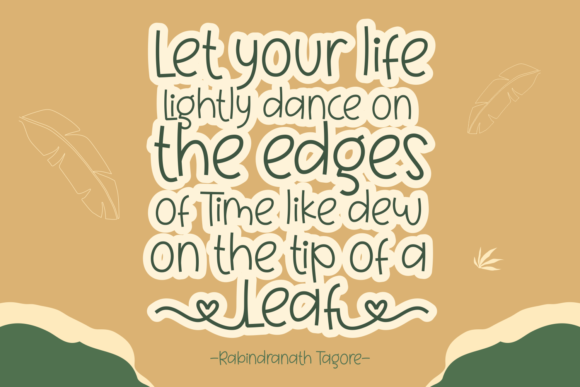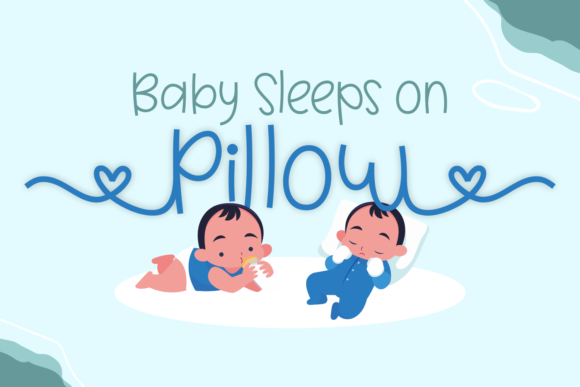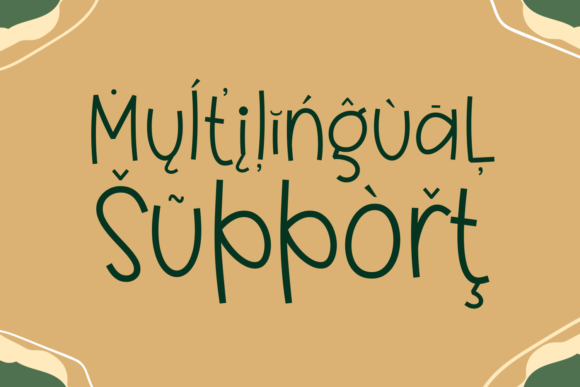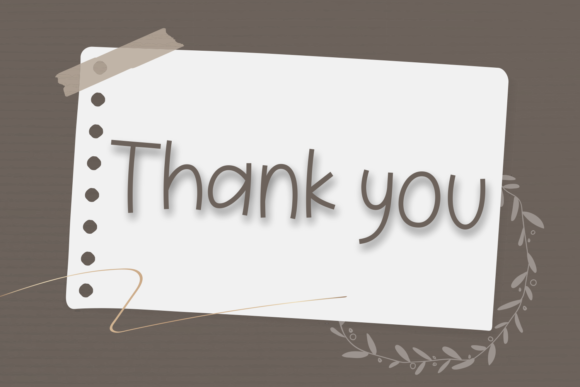
Introducing Halbert Font: The Ultimate Chic and Quirky Display Font for Designers and Crafters
Are you tired of using the same old fonts for your branding projects? Look no further! Halbert Font is here to revolutionize your design game with its unique blend of chic, fun, and quirky style. This display font is perfect for designers and crafters looking to add a touch of personality to their work. In this article, we’ll dive into the features and benefits of Halbert Font, and explore how it can elevate your branding projects to the next level.
What is Halbert Font?
Halbert Font is a stylish and versatile display font that is perfect for a wide range of applications, including logos, t-shirt printing, creative products, and more. Its unique design makes it stand out from the crowd, adding a touch of whimsy and playfulness to any project. Whether you’re a designer, crafter, or entrepreneur, Halbert Font is an excellent choice for anyone looking to add some personality to their brand.
Key Features of Halbert Font
- Chic and Quirky Design: Halbert Font boasts a unique and stylish design that is sure to turn heads. Its blend of chic and quirky elements makes it perfect for brands looking to add a touch of personality to their image.
- Highly Versatile: Halbert Font is perfect for a wide range of applications, including logos, t-shirt printing, creative products, and more. Its versatility makes it an excellent choice for designers and crafters who need a font that can adapt to different projects.
Benefits of Using Halbert Font
So, why should you choose Halbert Font for your next project? Here are just a few benefits of using this amazing display font:
- Stand Out from the Crowd: With Halbert Font, you can add a touch of personality to your brand and stand out from the competition. Its unique design ensures that your brand will be noticed and remembered.
- Perfect for Branding: Halbert Font is perfect for branding projects, including logos, business cards, and more. Its stylish and versatile design makes it an excellent choice for businesses looking to create a strong brand identity.
How to Use Halbert Font
- Pair it with Other Fonts: Halbert Font works well when paired with other fonts. Experiment with different combinations to create a unique and stylish look.
- Use it for Headings: Halbert Font is perfect for headings and titles. Use it to add a touch of personality to your website, blog, or marketing materials.
- Experiment with Swashes: Halbert Font comes with a range of swashes and glyphs. Experiment with different combinations to create a unique and customized look.
In conclusion, Halbert Font is a chic, fun, and quirky display font that is perfect for designers and crafters looking to add a touch of personality to their branding projects. Its unique design, PUA encoding, and versatility make it an excellent choice for a wide range of applications. Whether you’re looking to create a logo, t-shirt, or creative product, Halbert Font is sure to elevate your design game and help you stand out from the crowd.